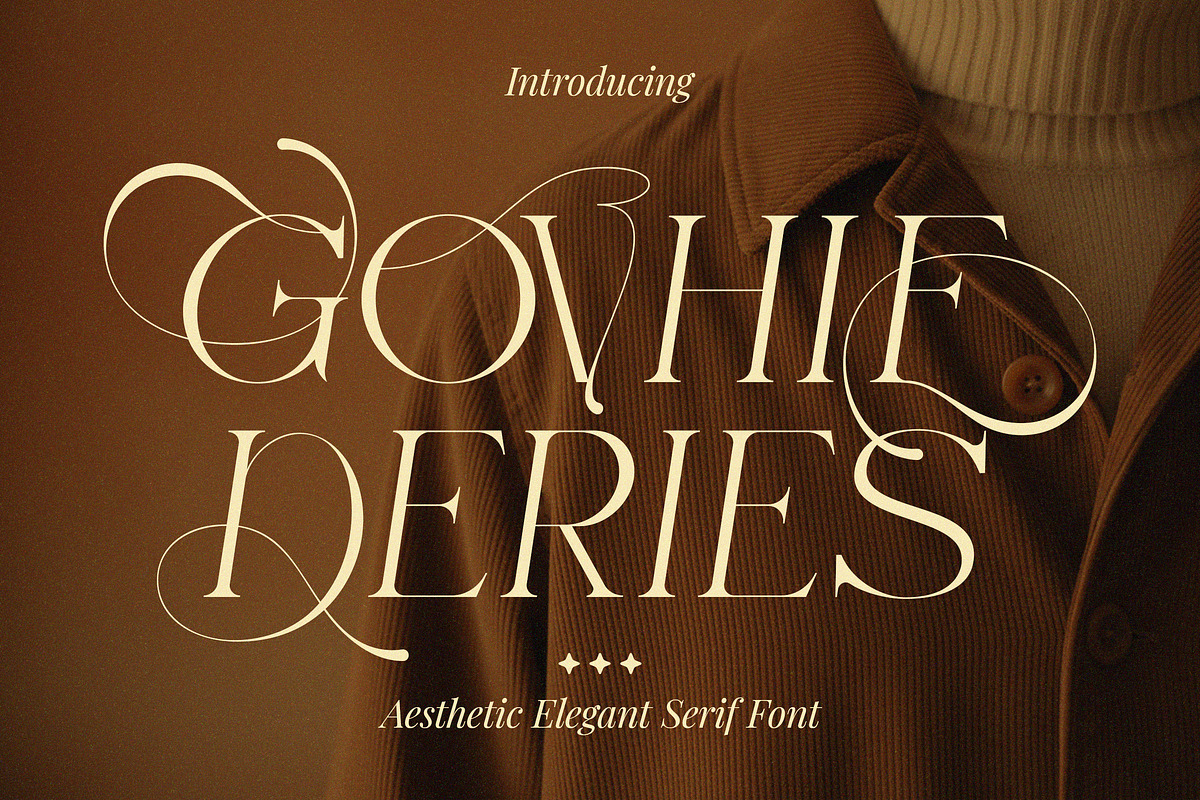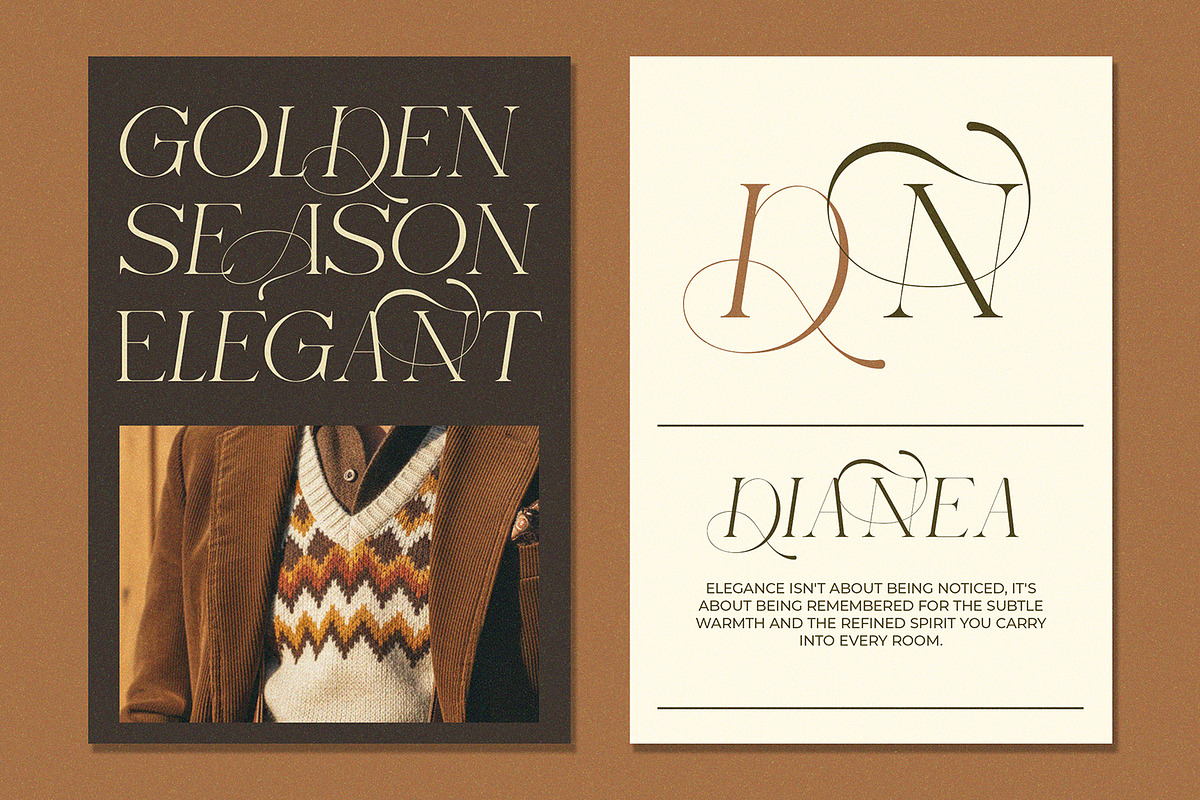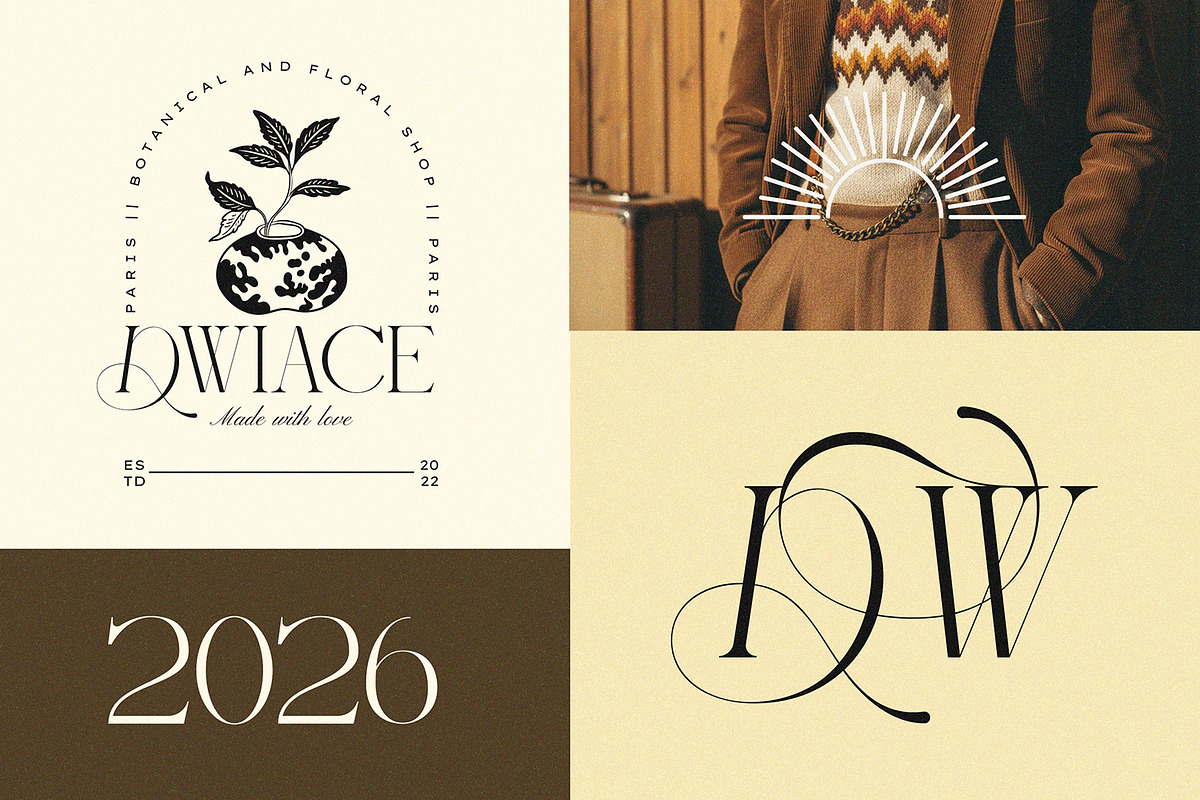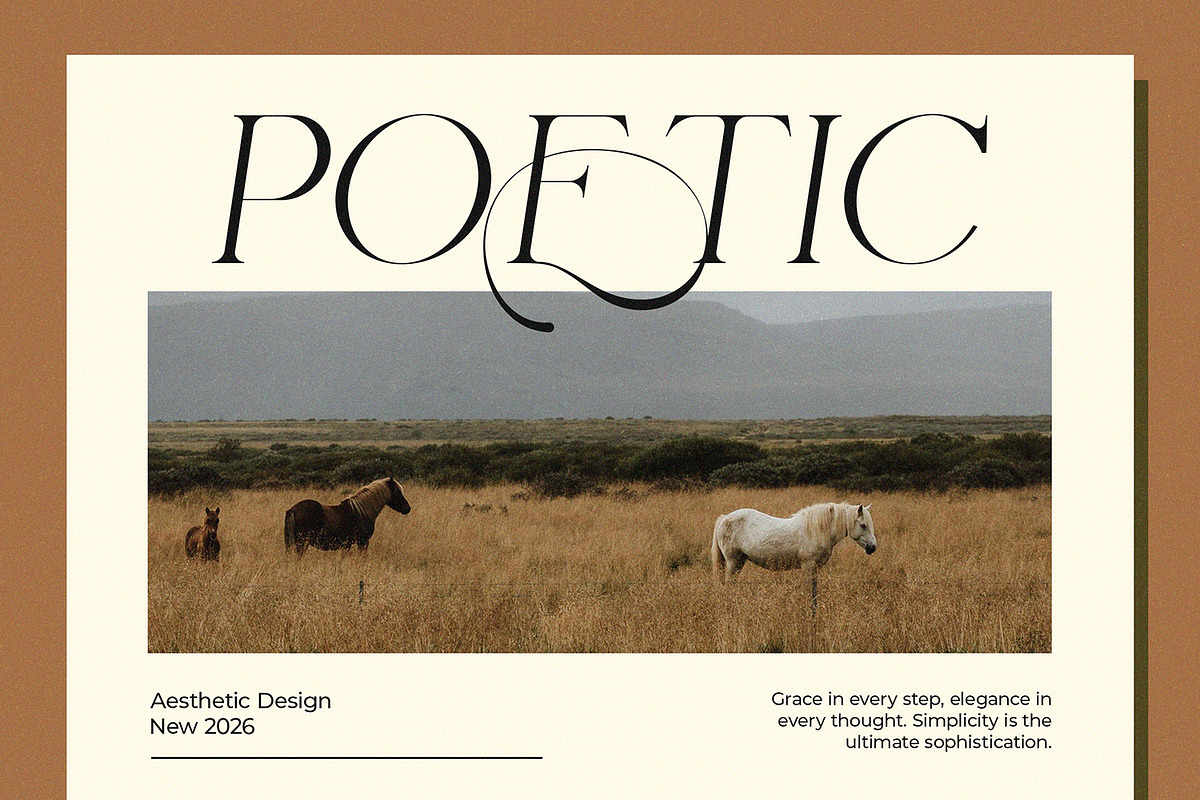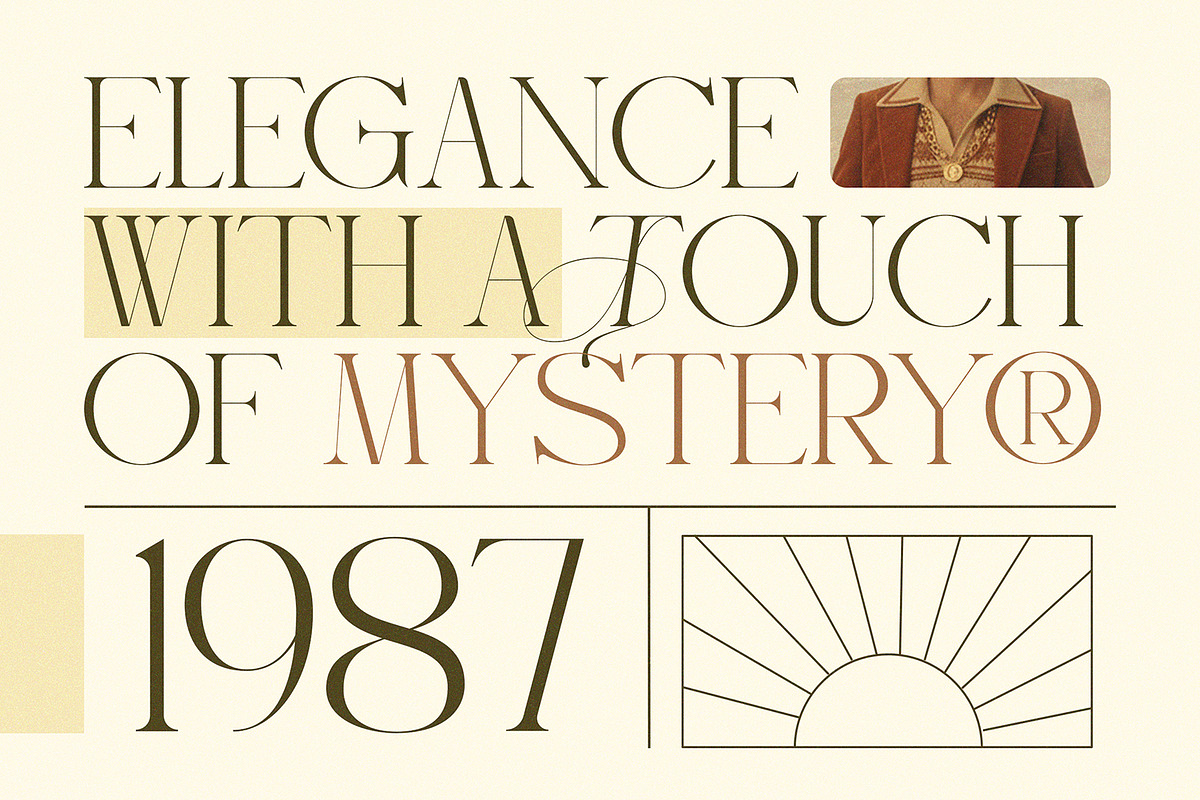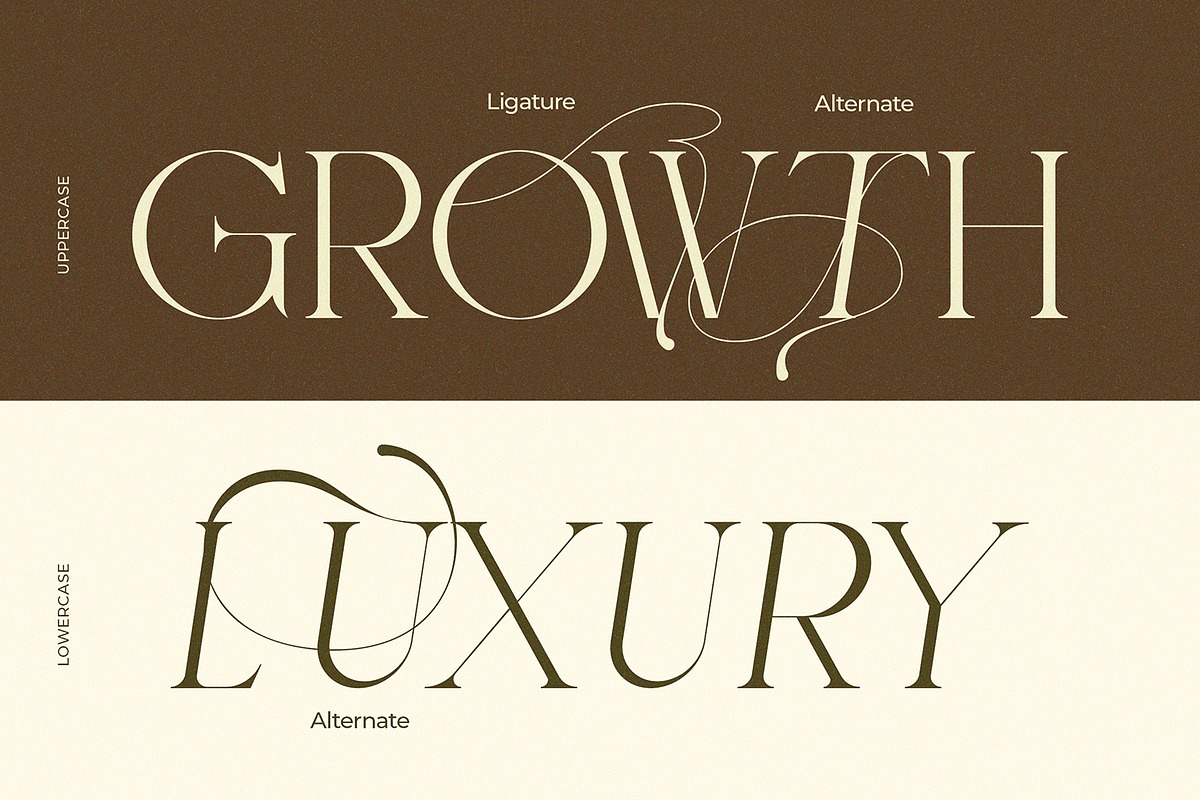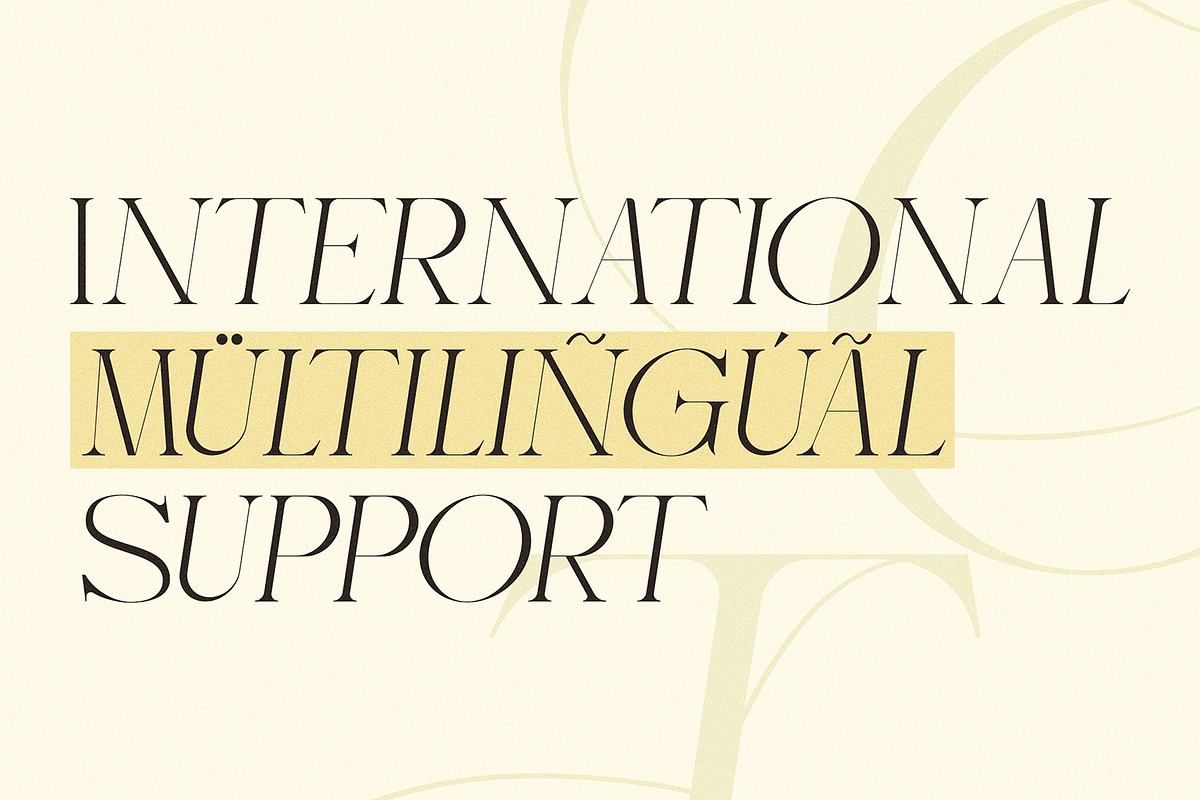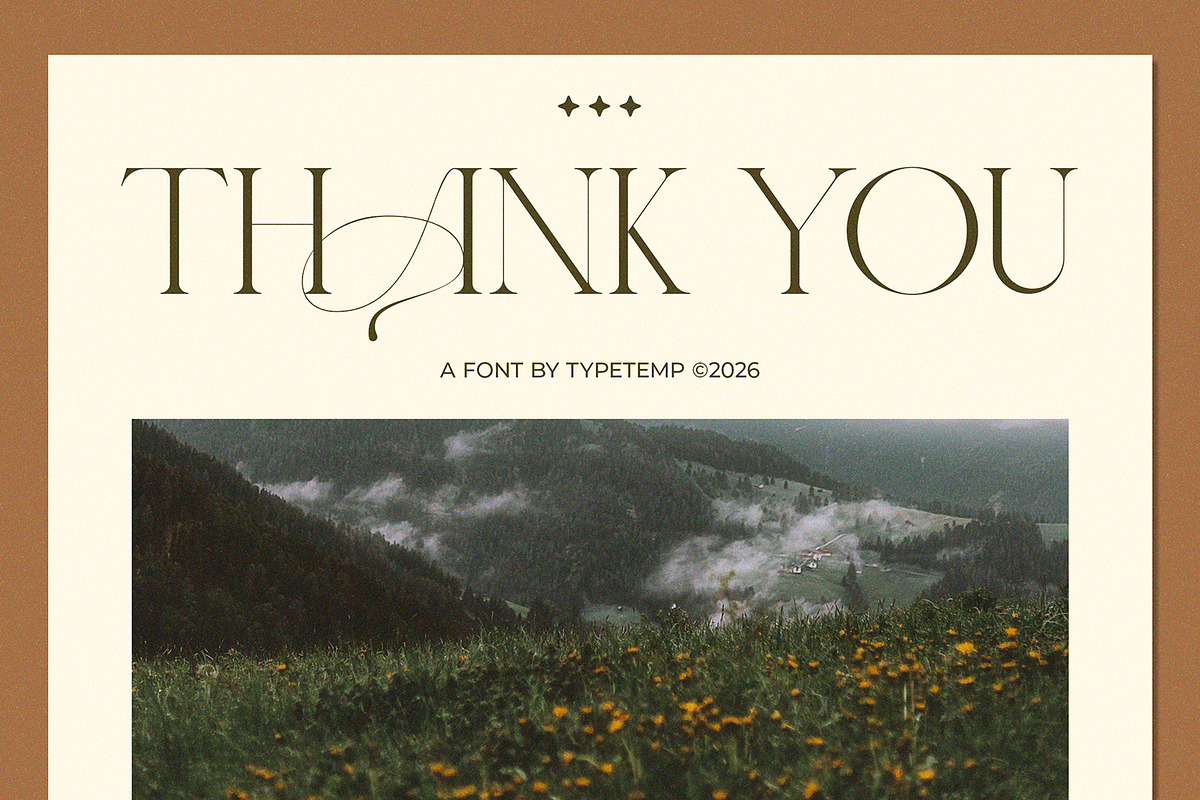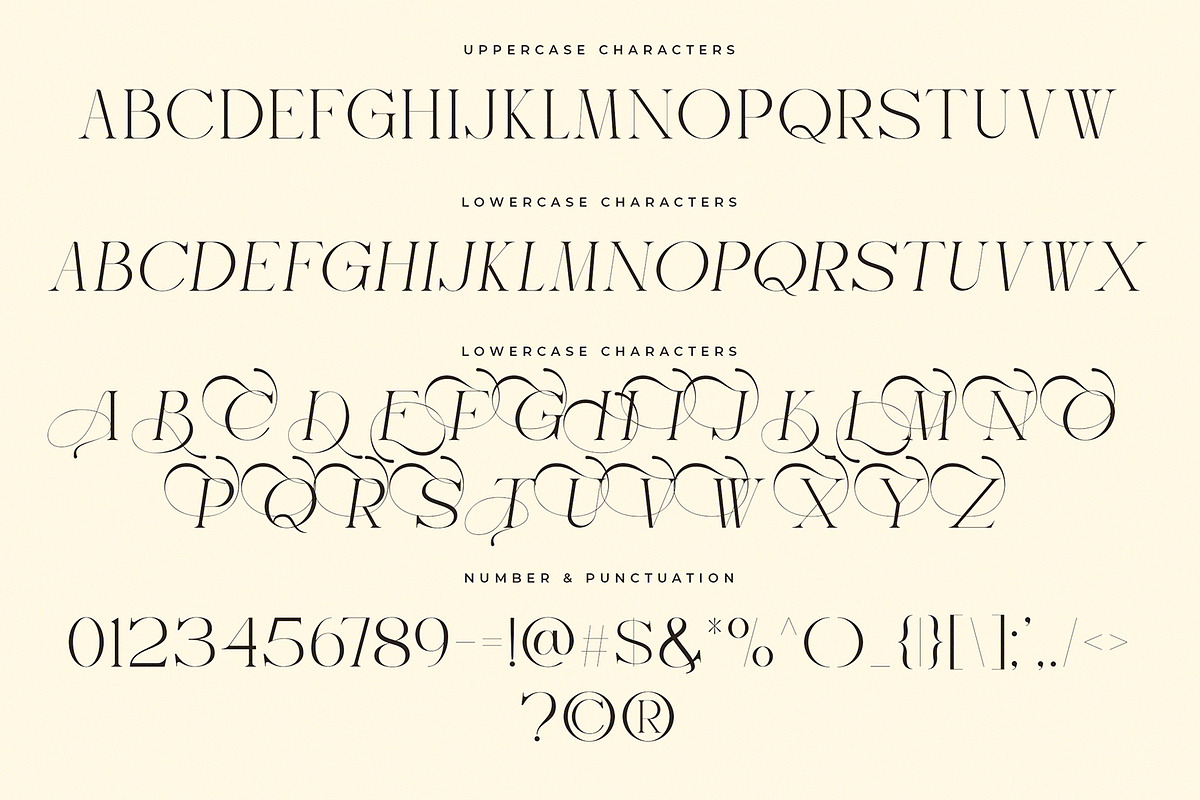
Govhie Deries Aesthetic Elegant
Govie Deries is an aesthetic elegant serif font featuring refined letterforms with graceful curves and decorative swashes. Designed to convey luxury and sophistication, this typeface combines classic serif structure with artistic details for a timeless visual appeal.
Ideal for branding, fashion editorials, wedding designs, logos, invitations, packaging, and premium display typography. Govie Deries delivers strong character while remaining elegant and readable across both print and digital applications.
Elegant serif typeface with refined and decorative letterforms
Aesthetic swashes for a luxurious and artistic appearance
High-contrast strokes for a classic yet modern look
Carefully crafted curves for premium typography results
Luxury branding and logo design
Fashion editorials and magazine layouts
Wedding invitations and event stationery
Beauty, lifestyle, and boutique branding
Social media quotes and promotional visuals
A perfect choice for designers seeking a stylish serif font with a modern classic touch.